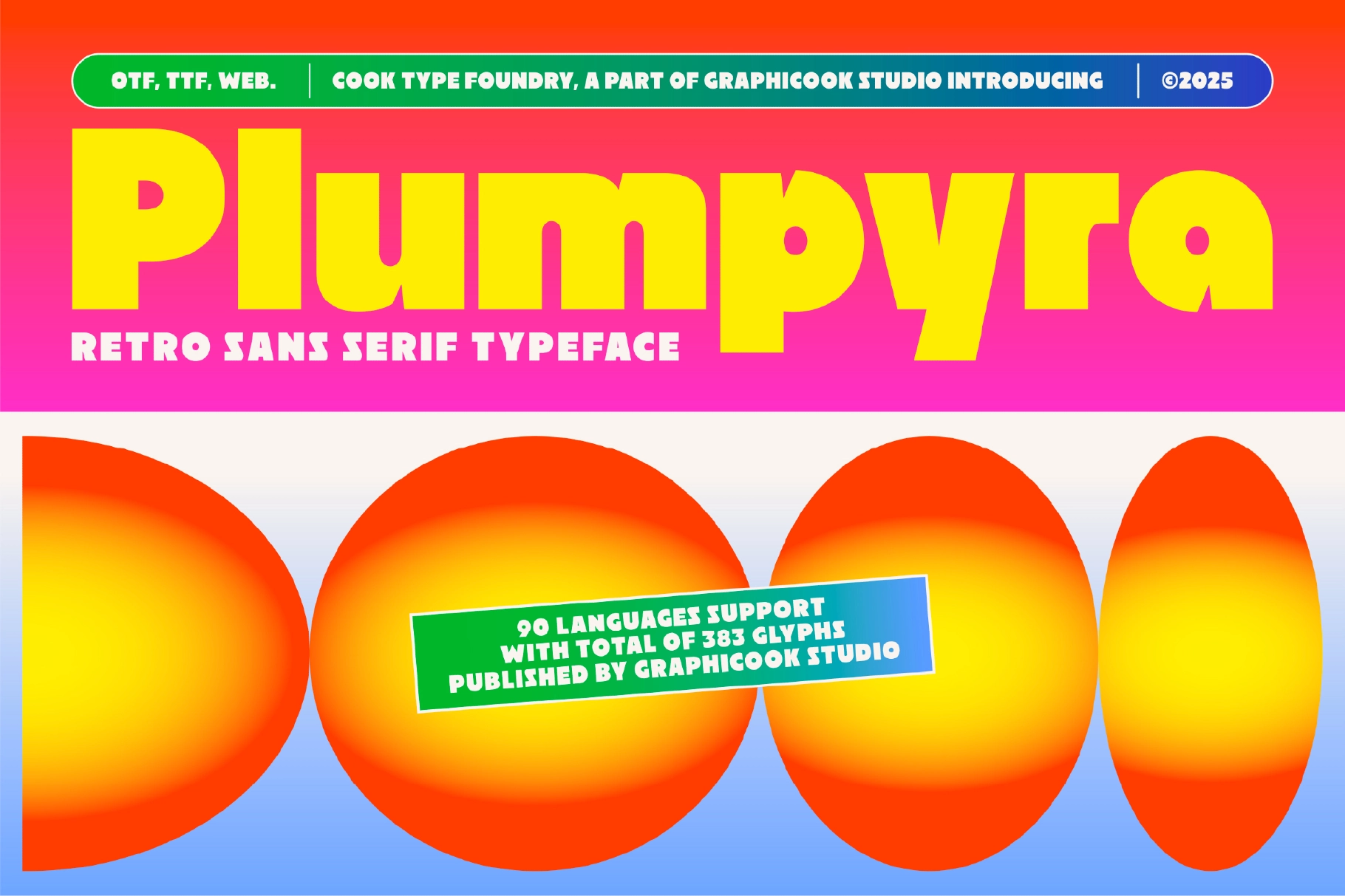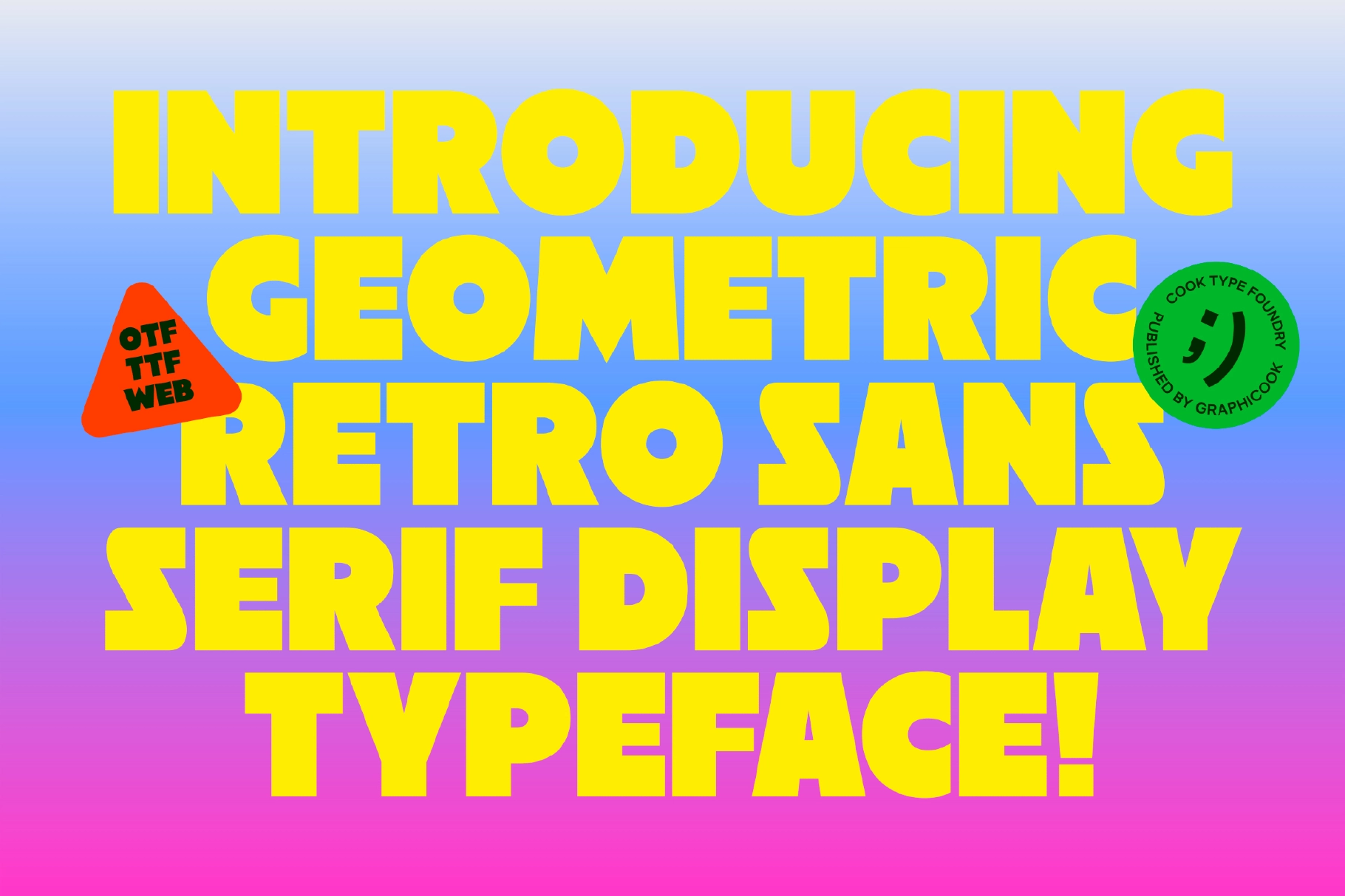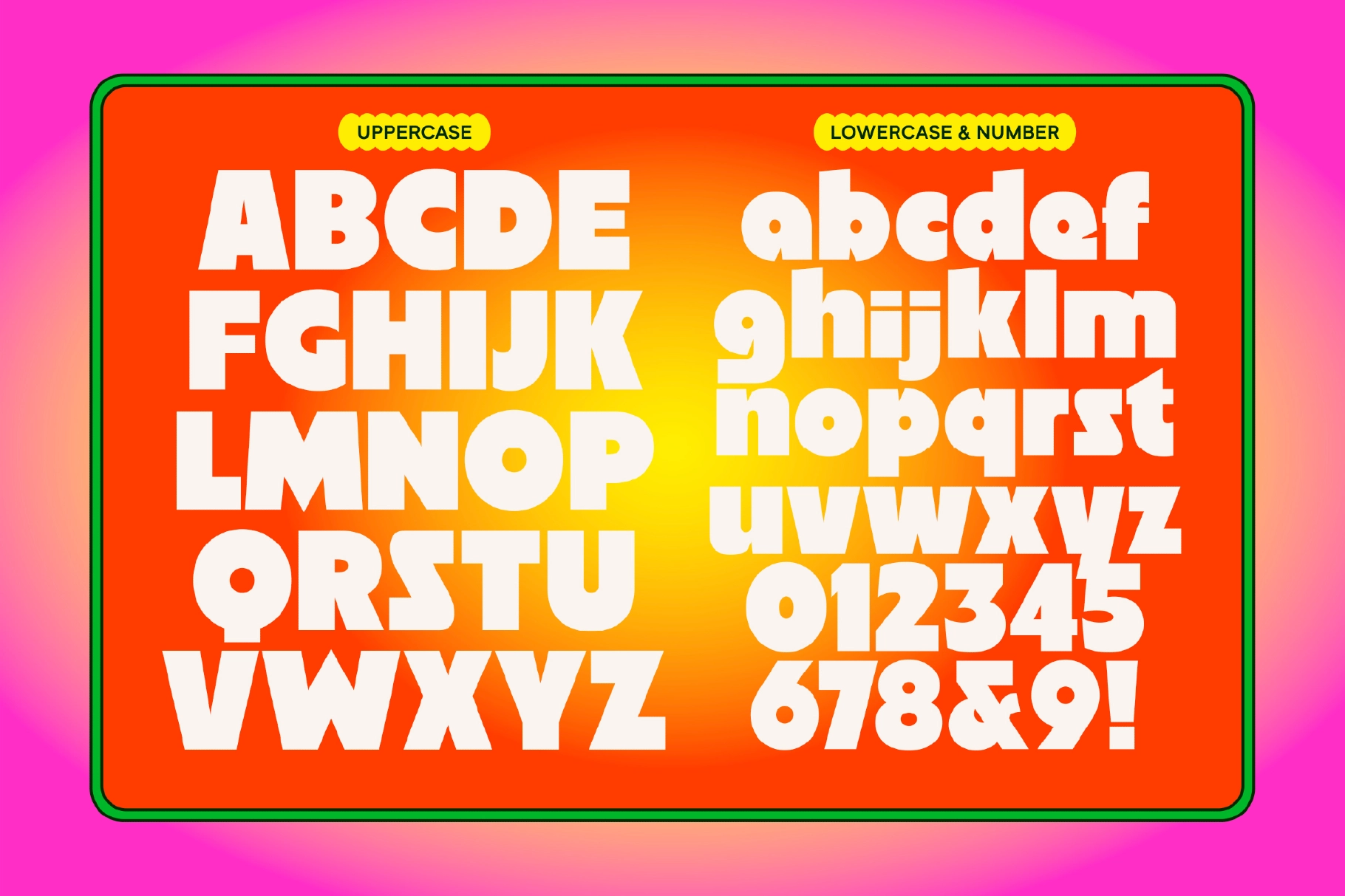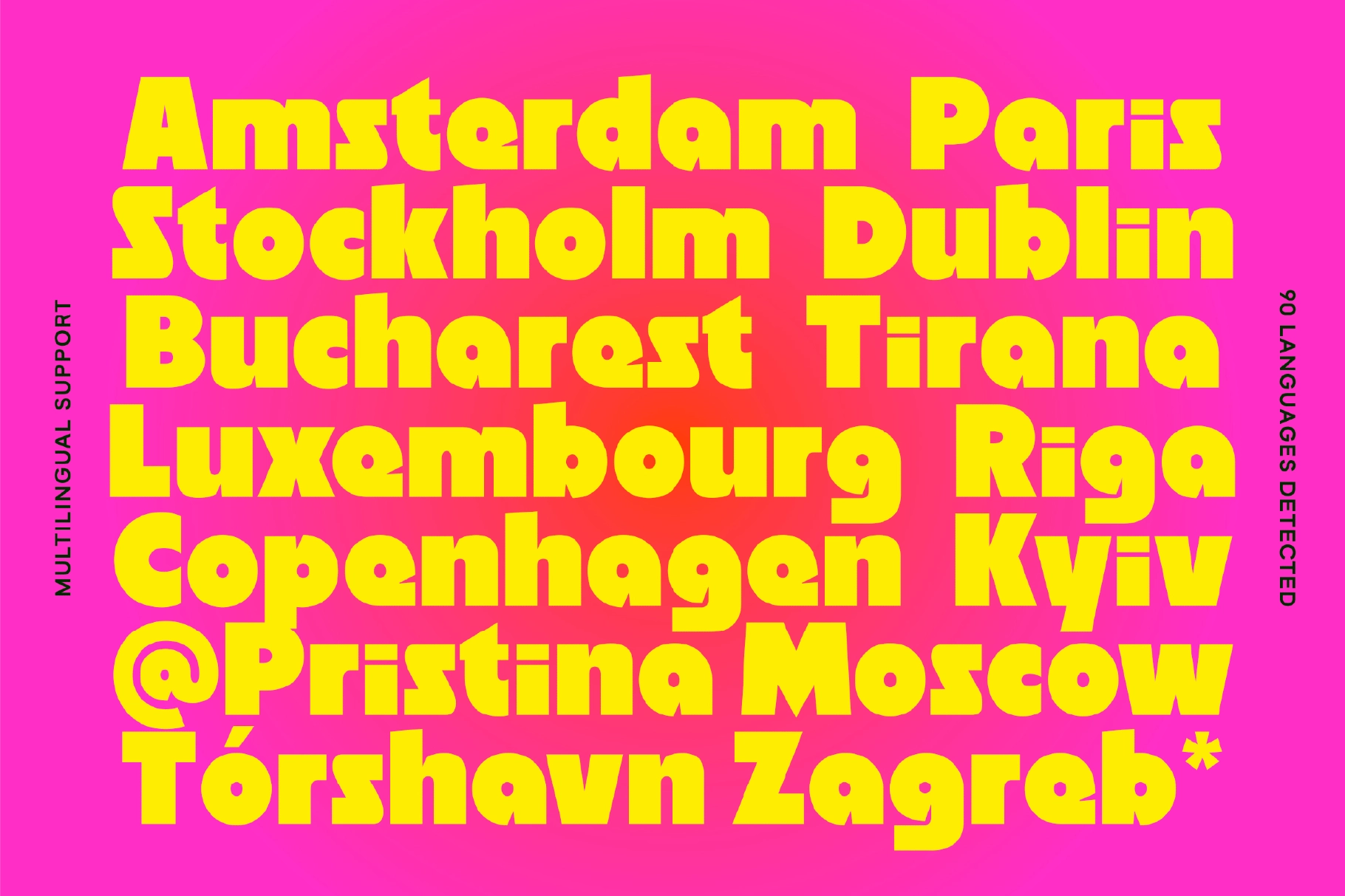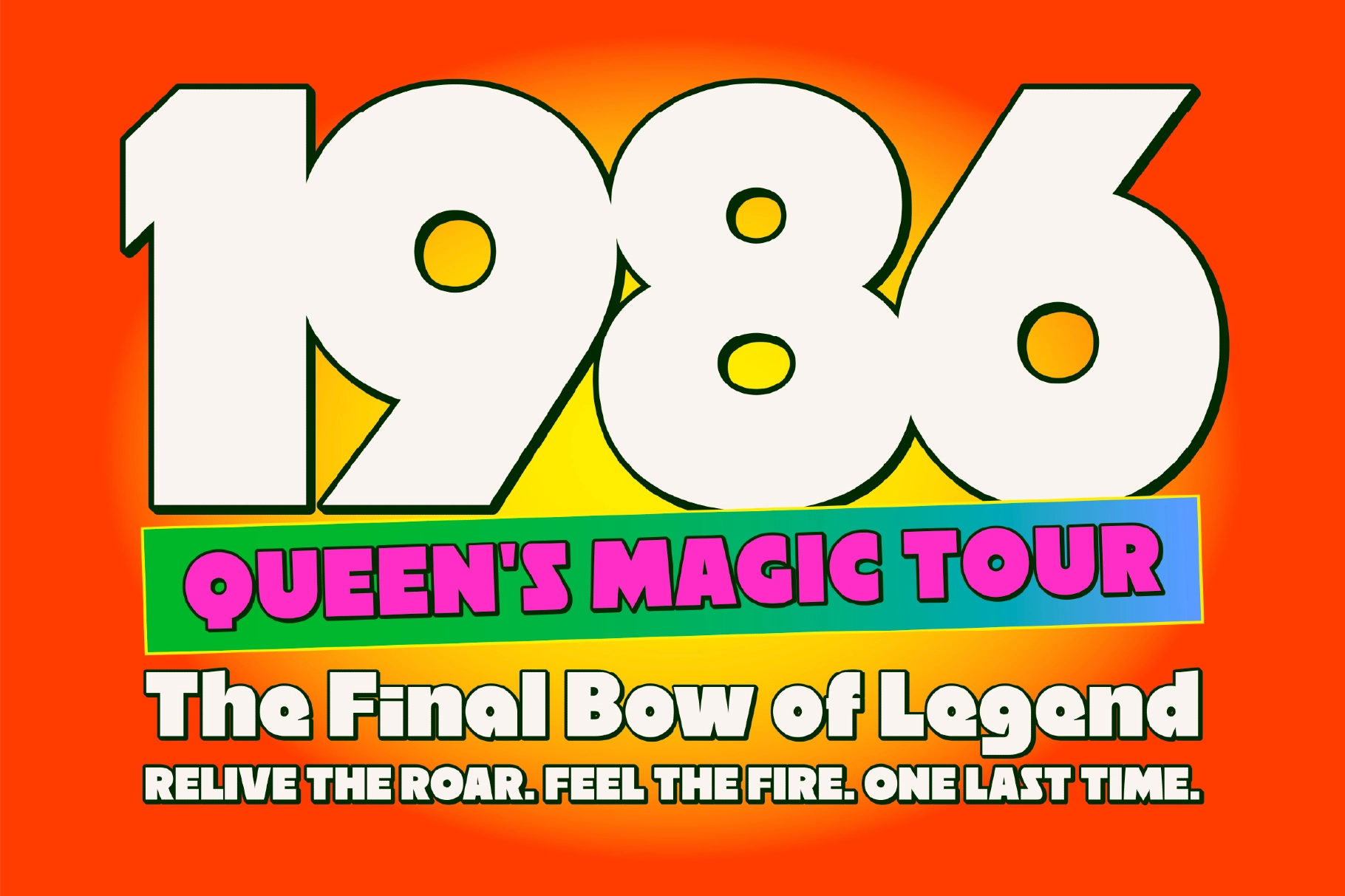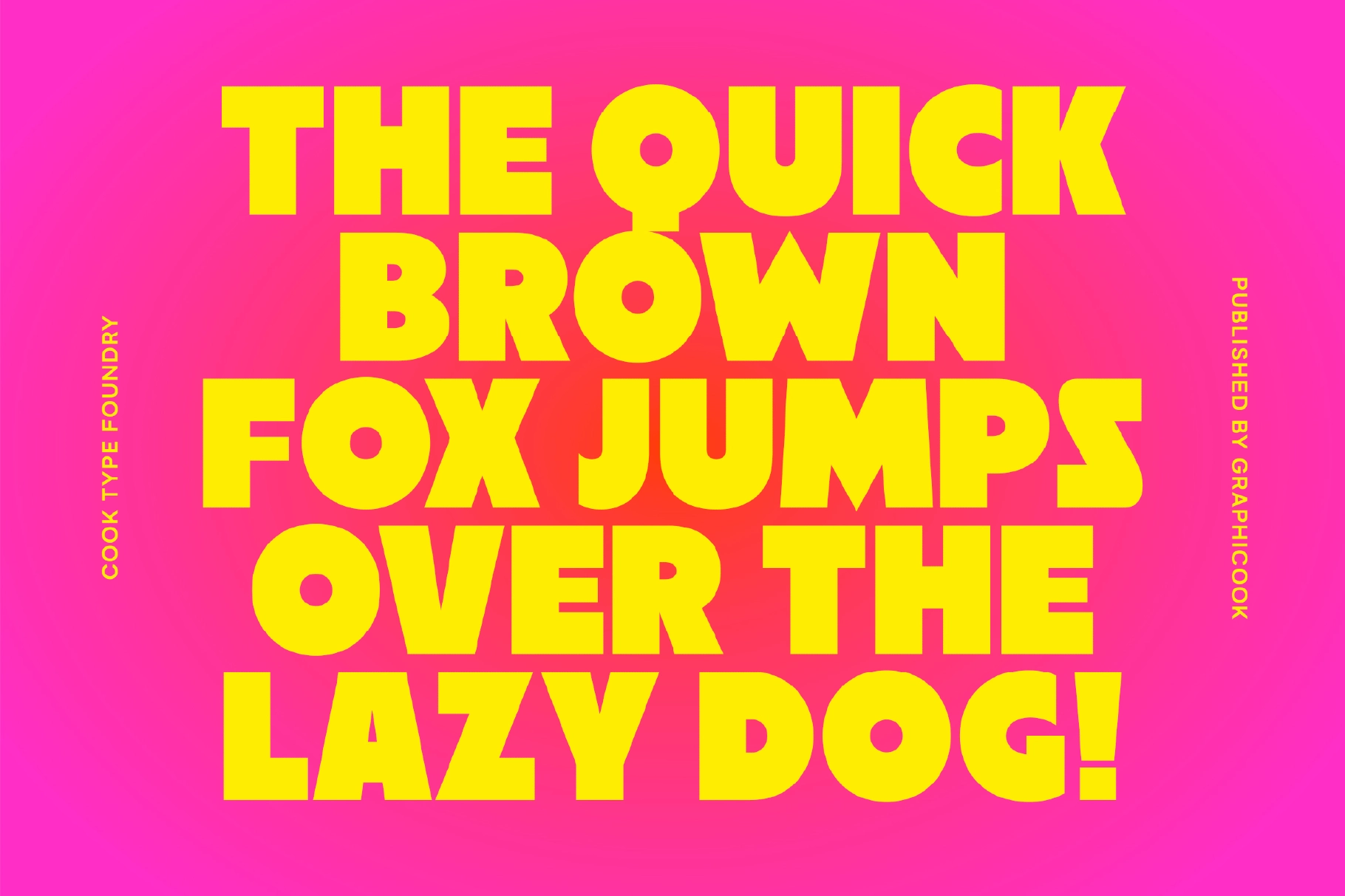
Plumpyra Font
Plumpyra
Plumpyra is a bold geometric font with symmetrical and precise forms that convey a professional, modern feel. Perfect for headlines, billboards, packaging, or any design requiring a clean, bold typeface.